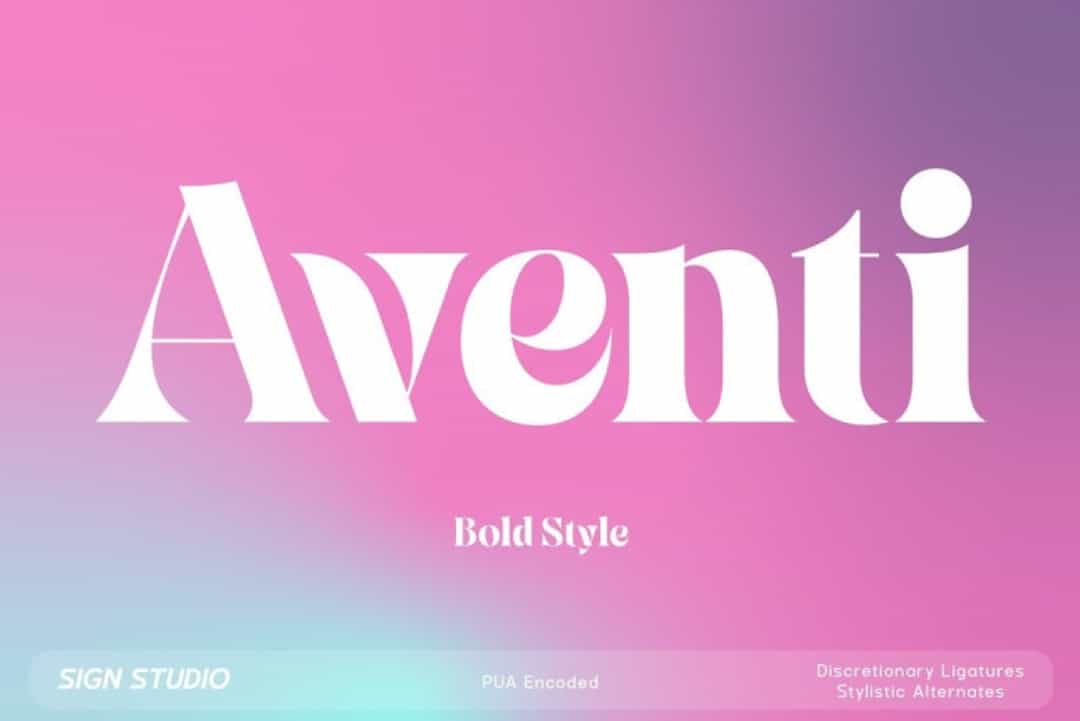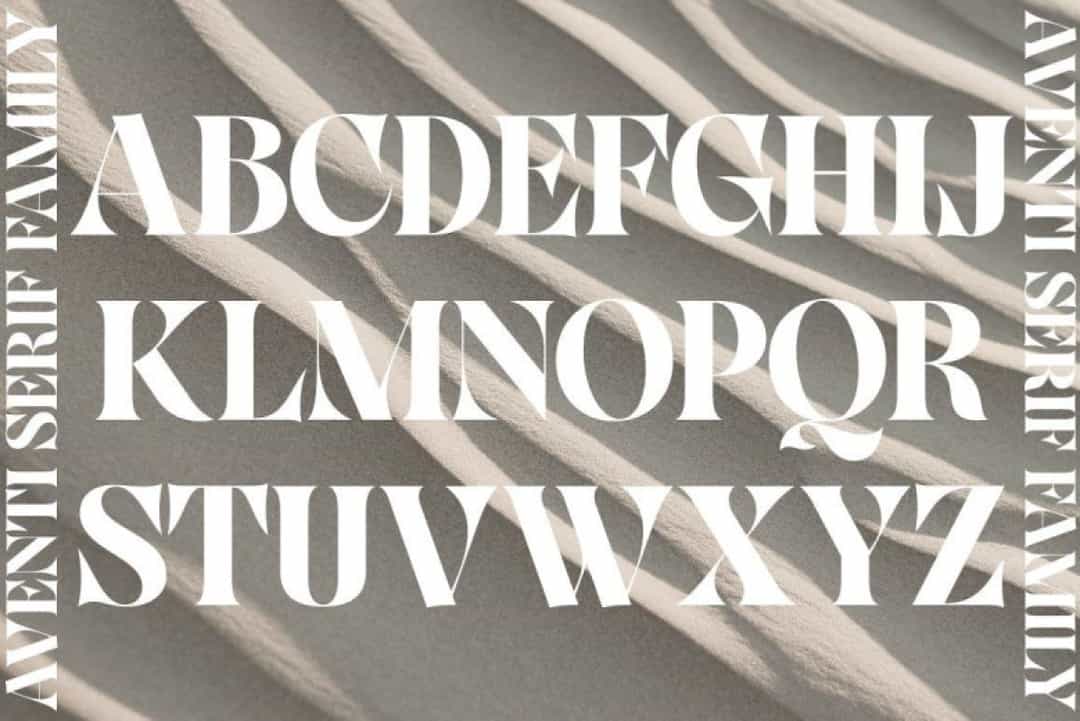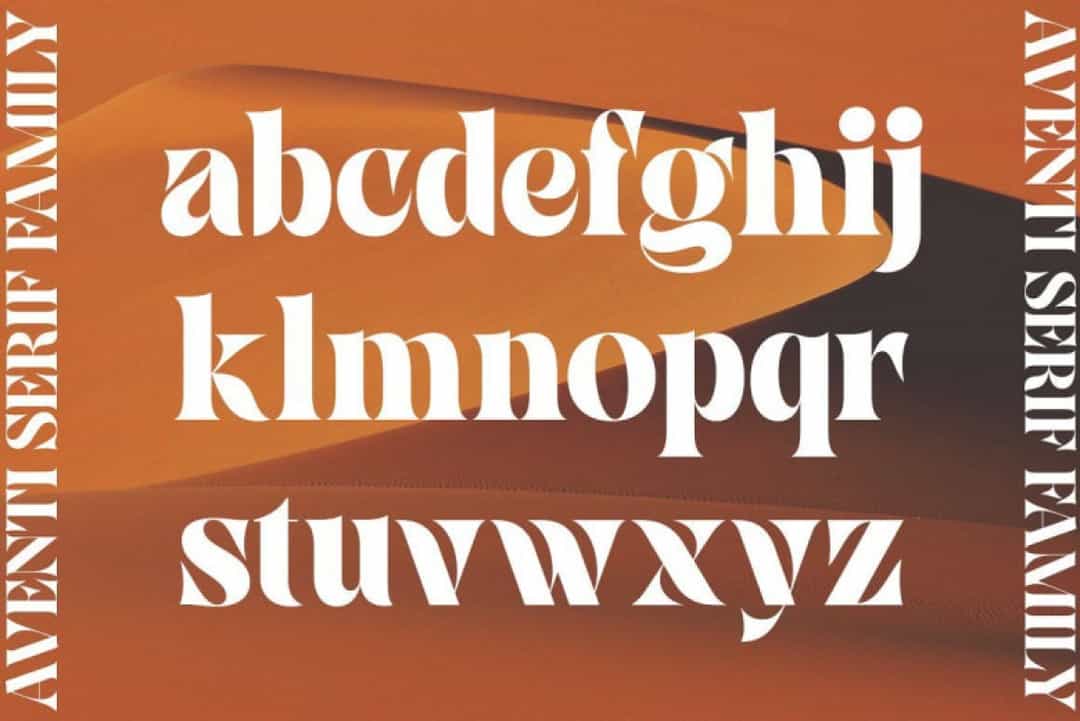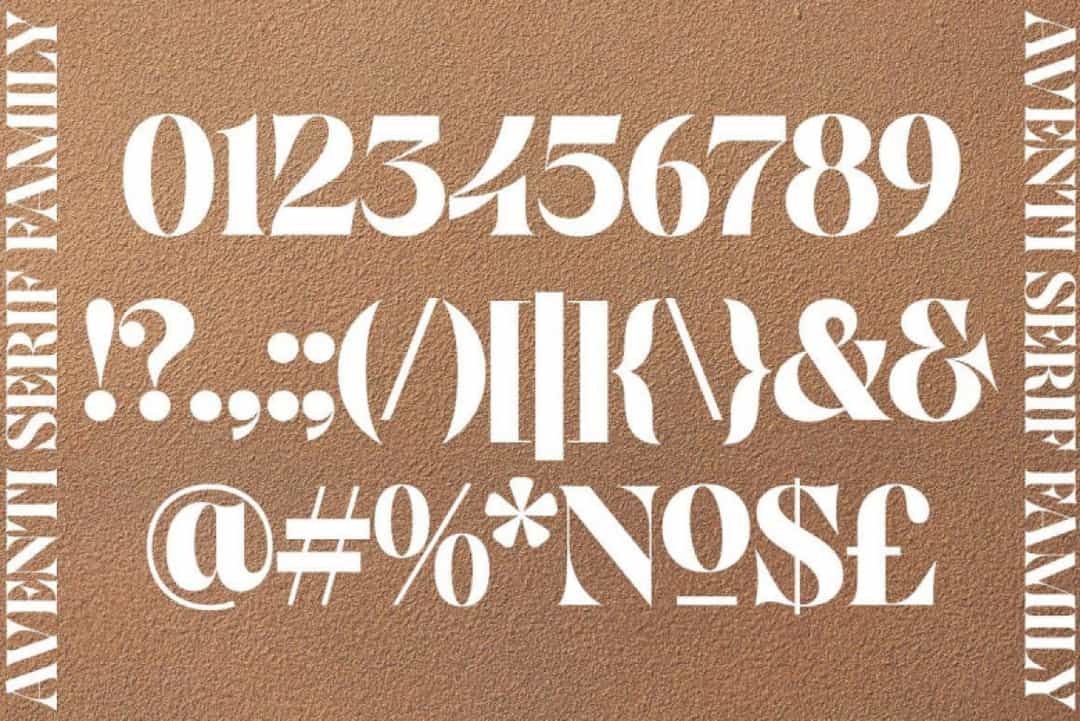
Aventi can be described as an exquisite and bold serif typeface. Featuring stylistic alternates (a, the letters e, g and y), as well as discretionary ligatures to suit different design concepts such as branding cards, card designs and label applications; PUA encoded for seamless access of characters glyphs ligatures etc.